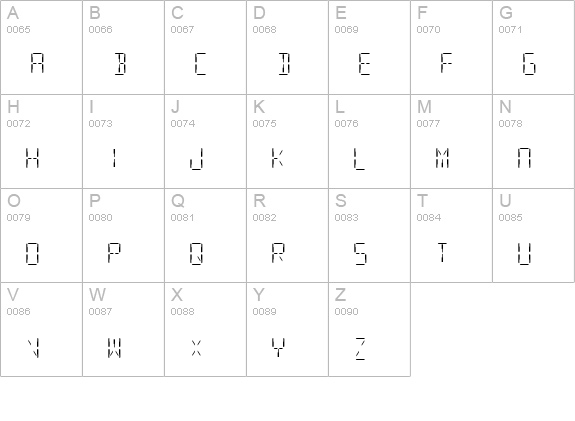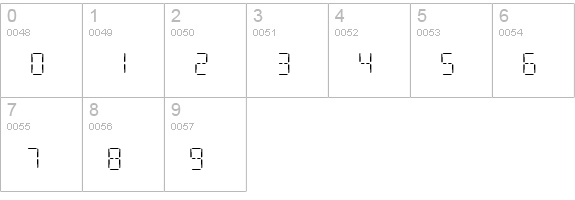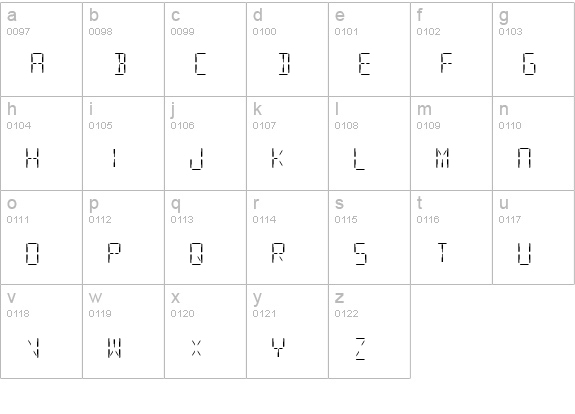
SF Digital Readout Light Font Details
SF Digital Readout Light is a refined, elegant variant in the SF typeface family \xE2\x80\x94 well suited to elegant body text, refined sub-headings, and luxury branding.
SF Digital Readout Light is a sleek and futuristic font that brings a touch of modernity to any design project. Its clean lines and geometric shapes create a sense of precision and technology, making it perfect for digital displays, tech-related websites, or any design that needs a high-tech vibe. This font features a light weight, adding an elegant and minimalistic touch to your designs. Whether you're creating a high-tech logo, a digital interface, or a sci-fi inspired poster, SF Digital Readout Light will help you achieve a sleek and professional look. One of the best things about SF Digital Readout Light is that it is free to download at FontsMarket.com. This means that you can add a touch of futuristic elegance to your designs without having to spend a dime. With its freely available download, you can easily incorporate this font into your projects and elevate them to a whole new level. So why wait? Download SF Digital Readout Light today from FontsMarket.com and start adding a touch of modernity and sophistication to your designs.